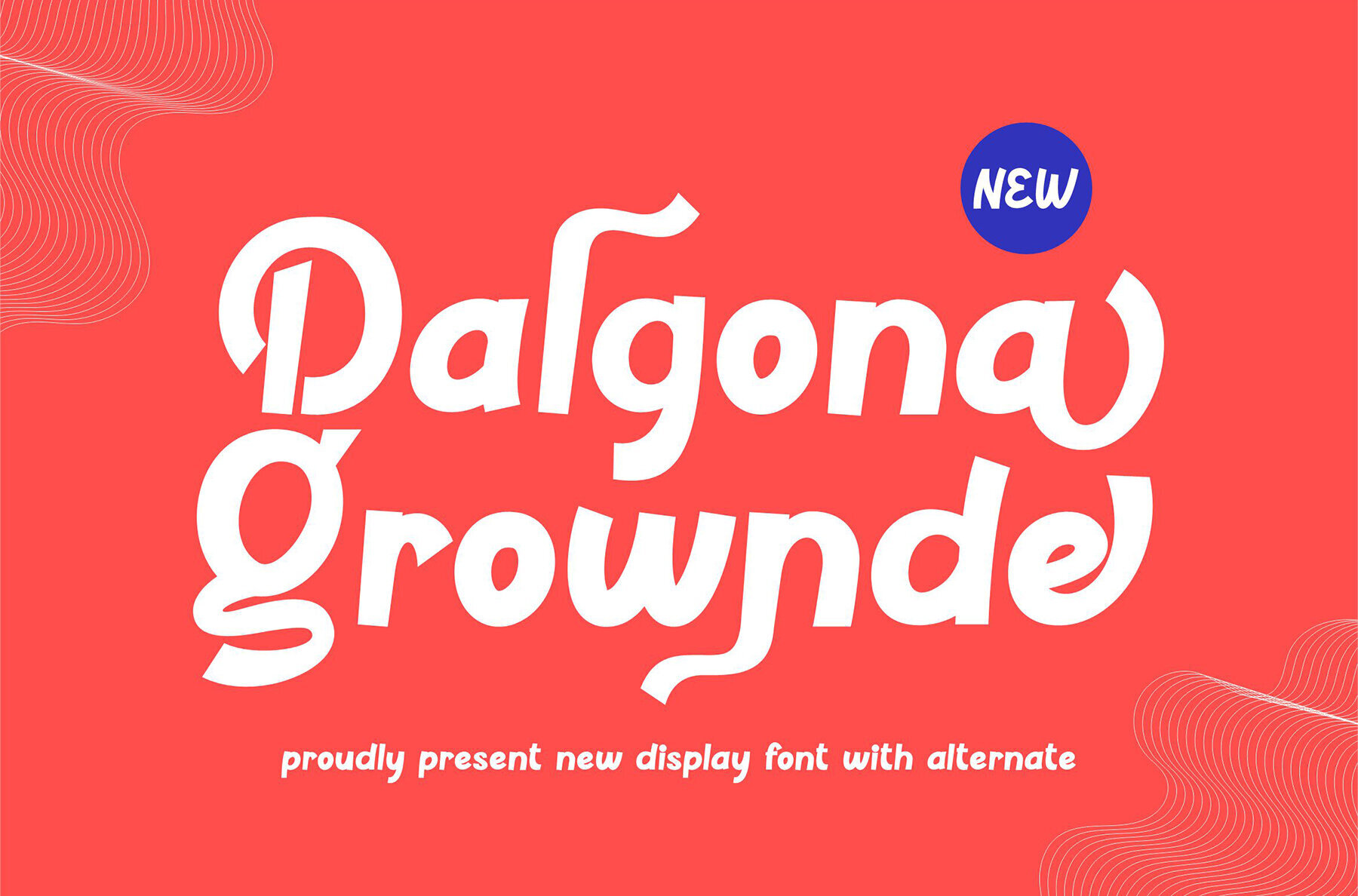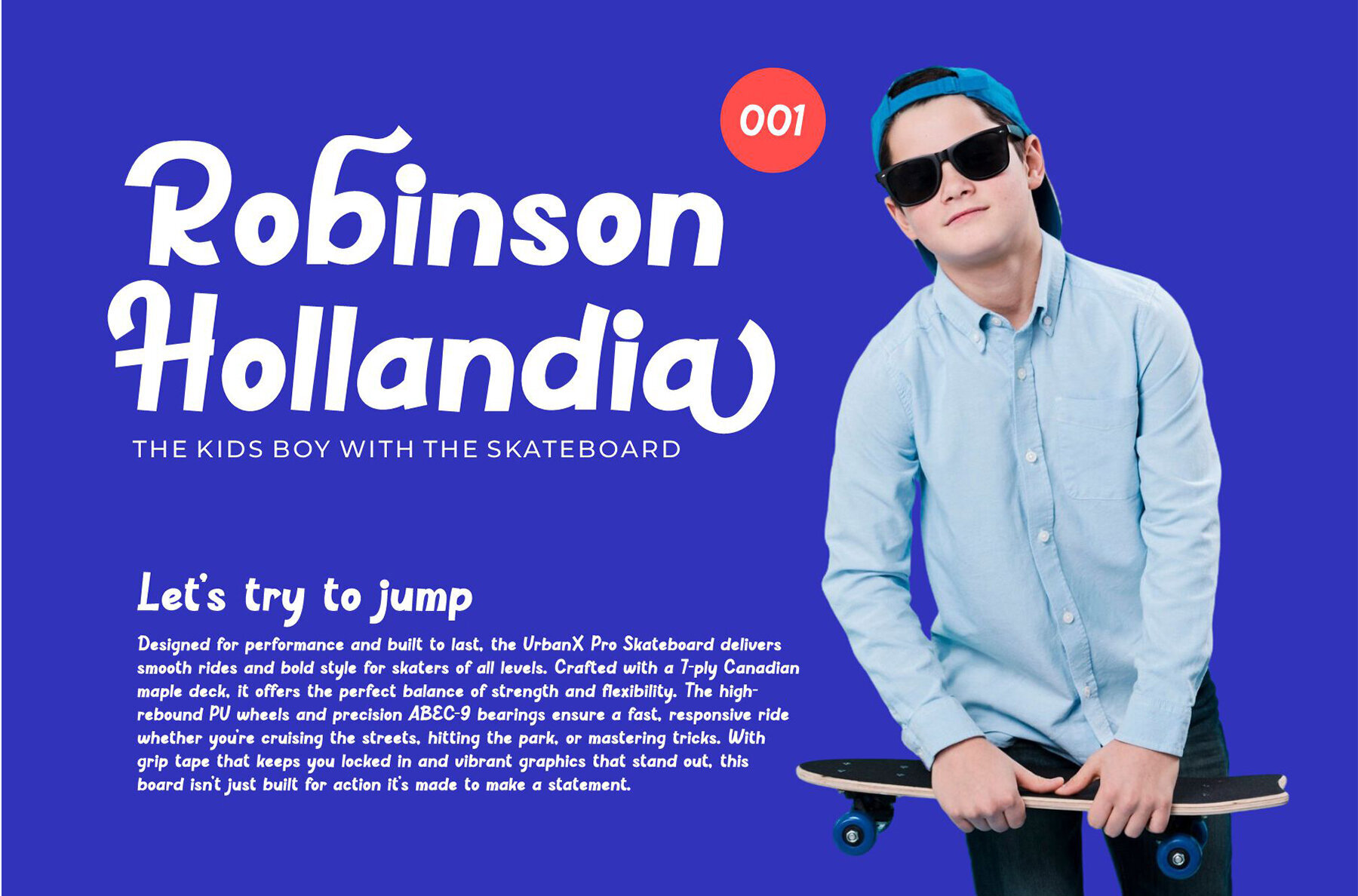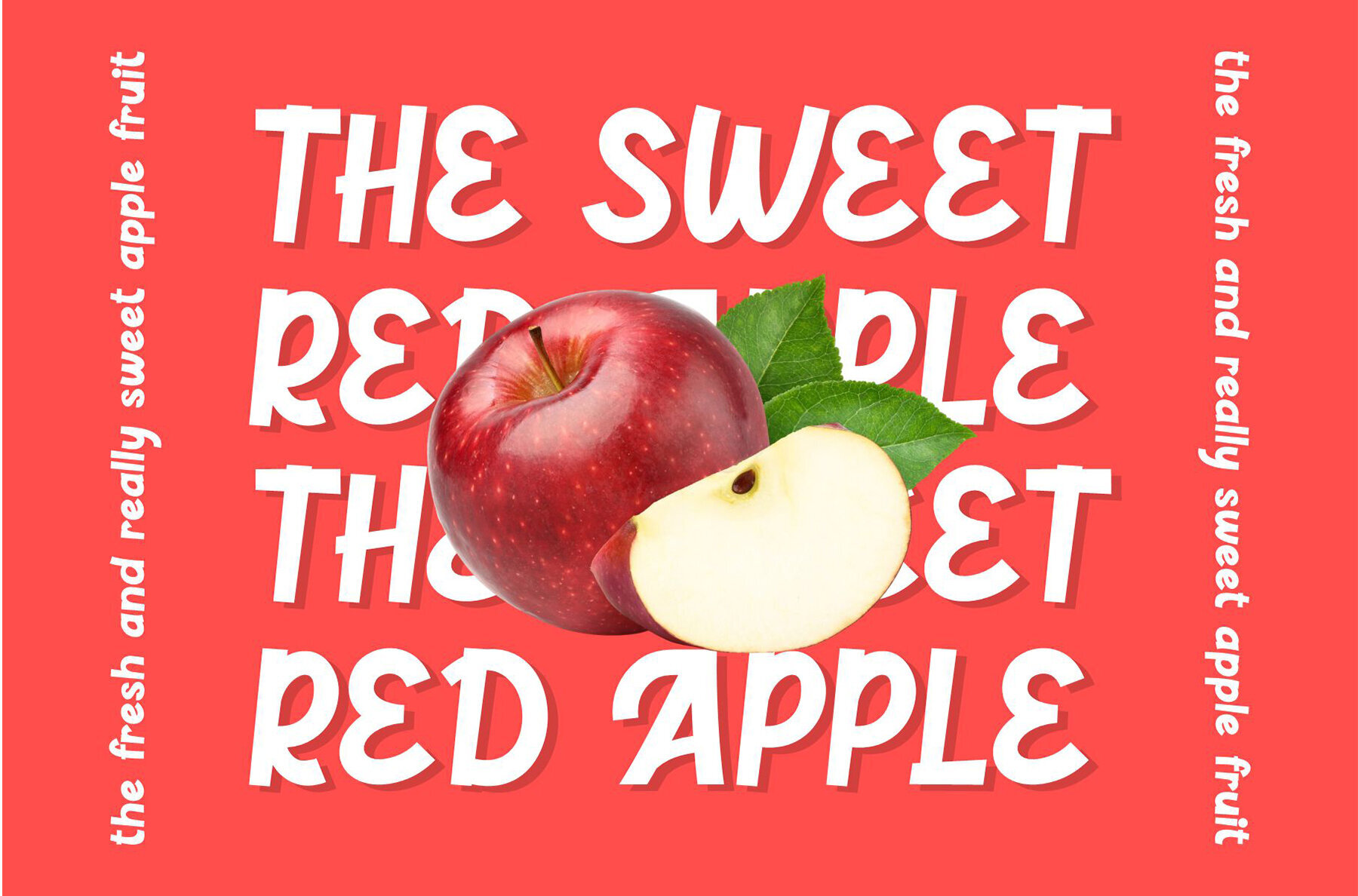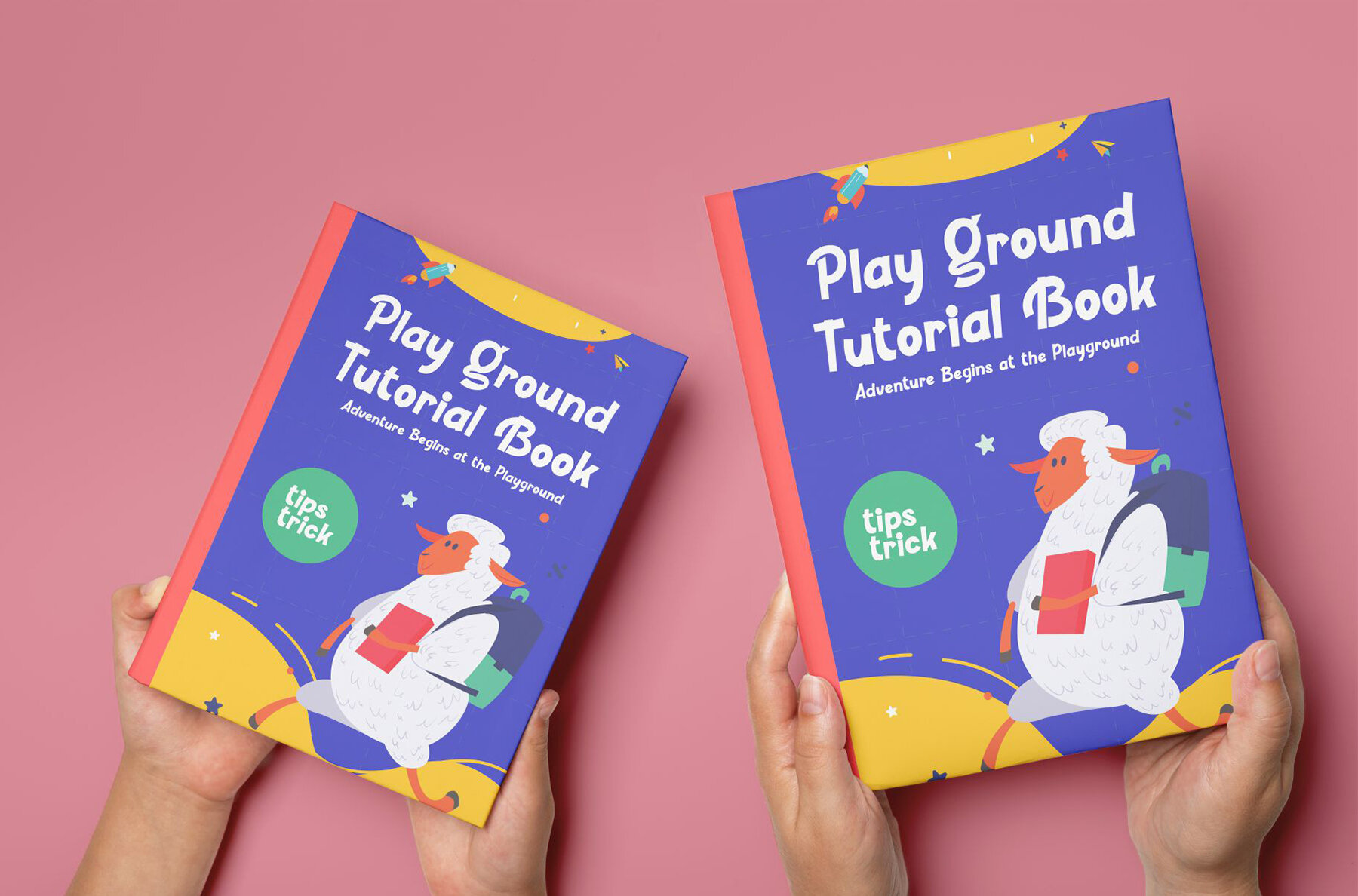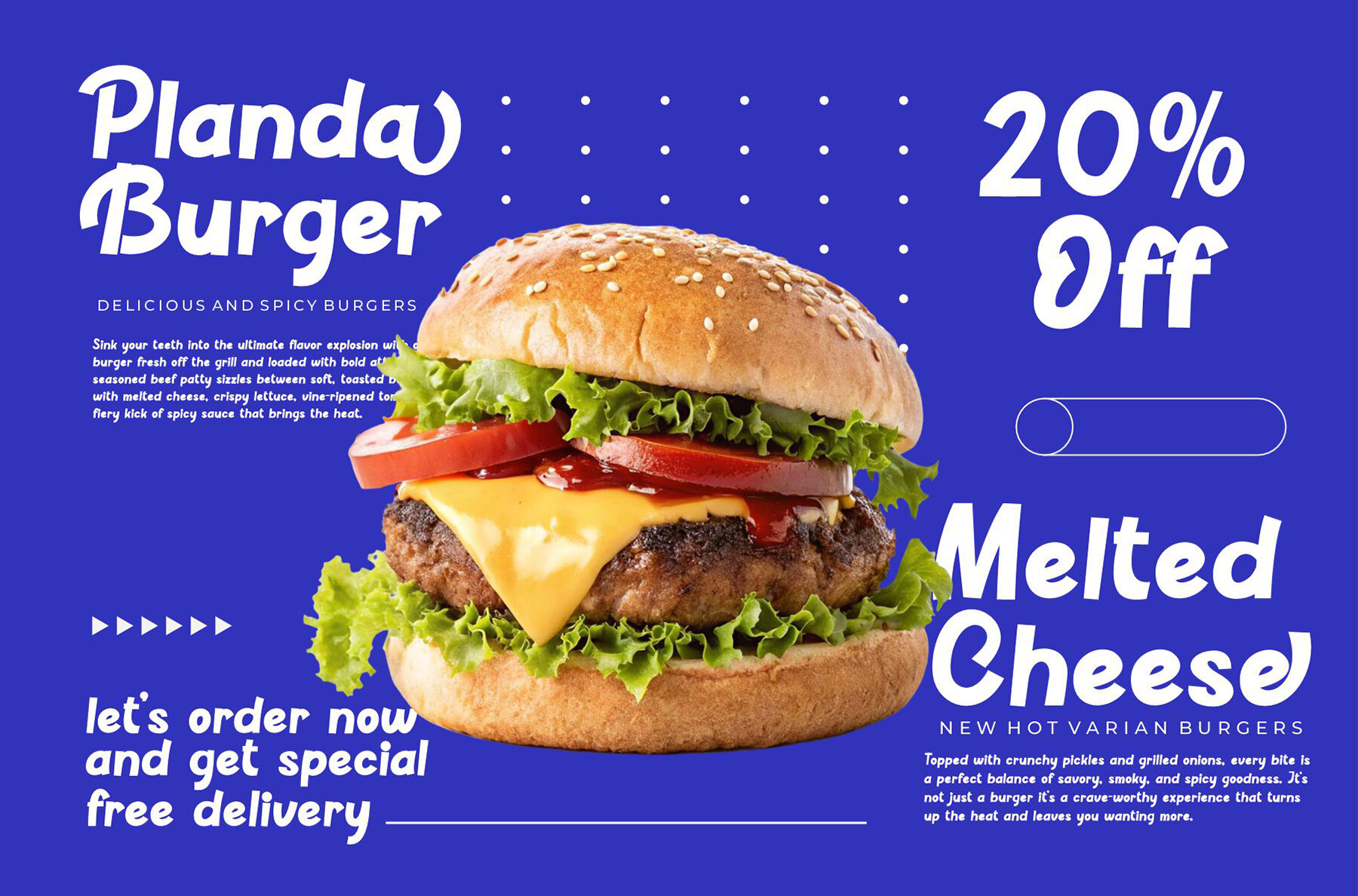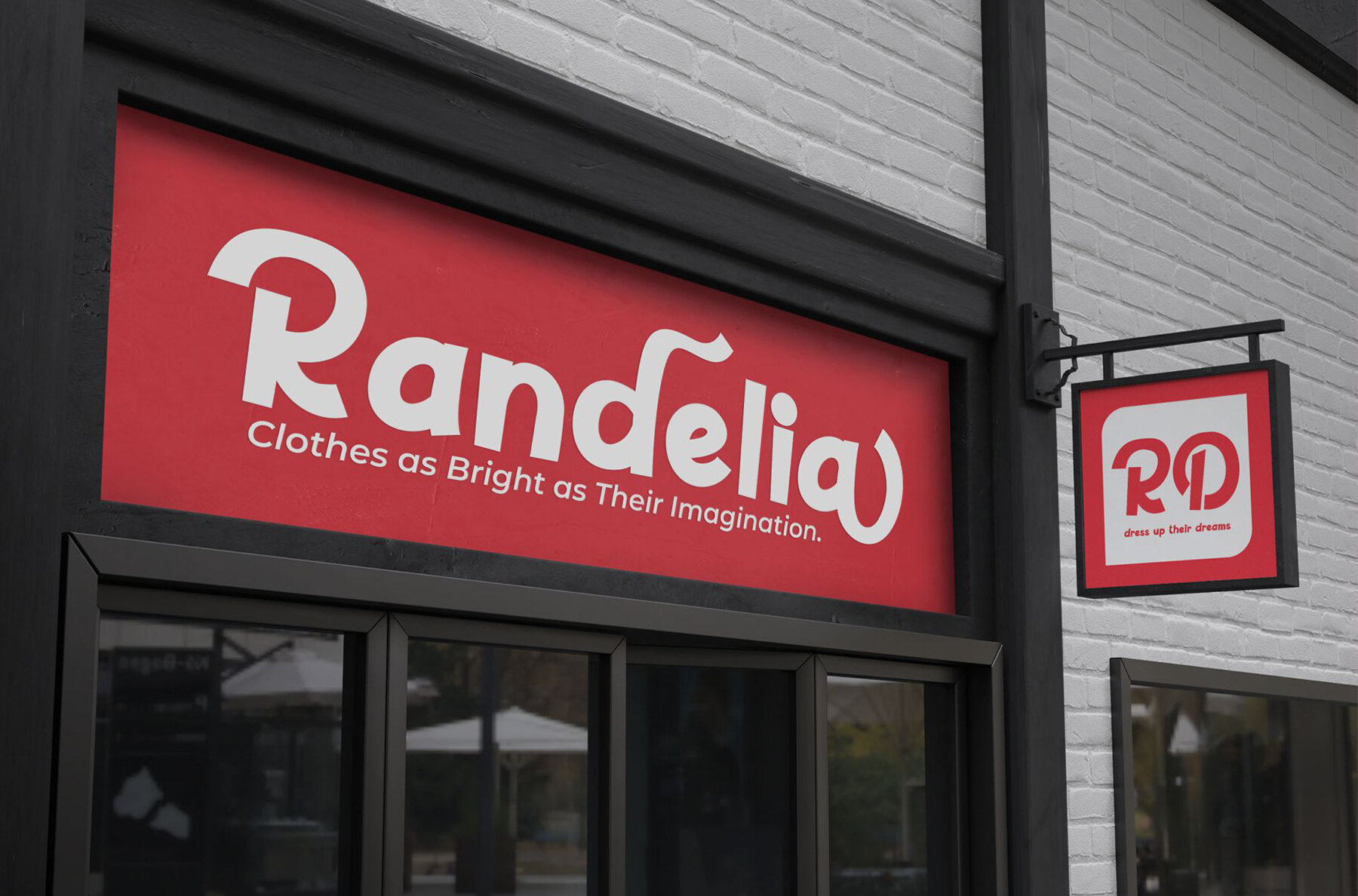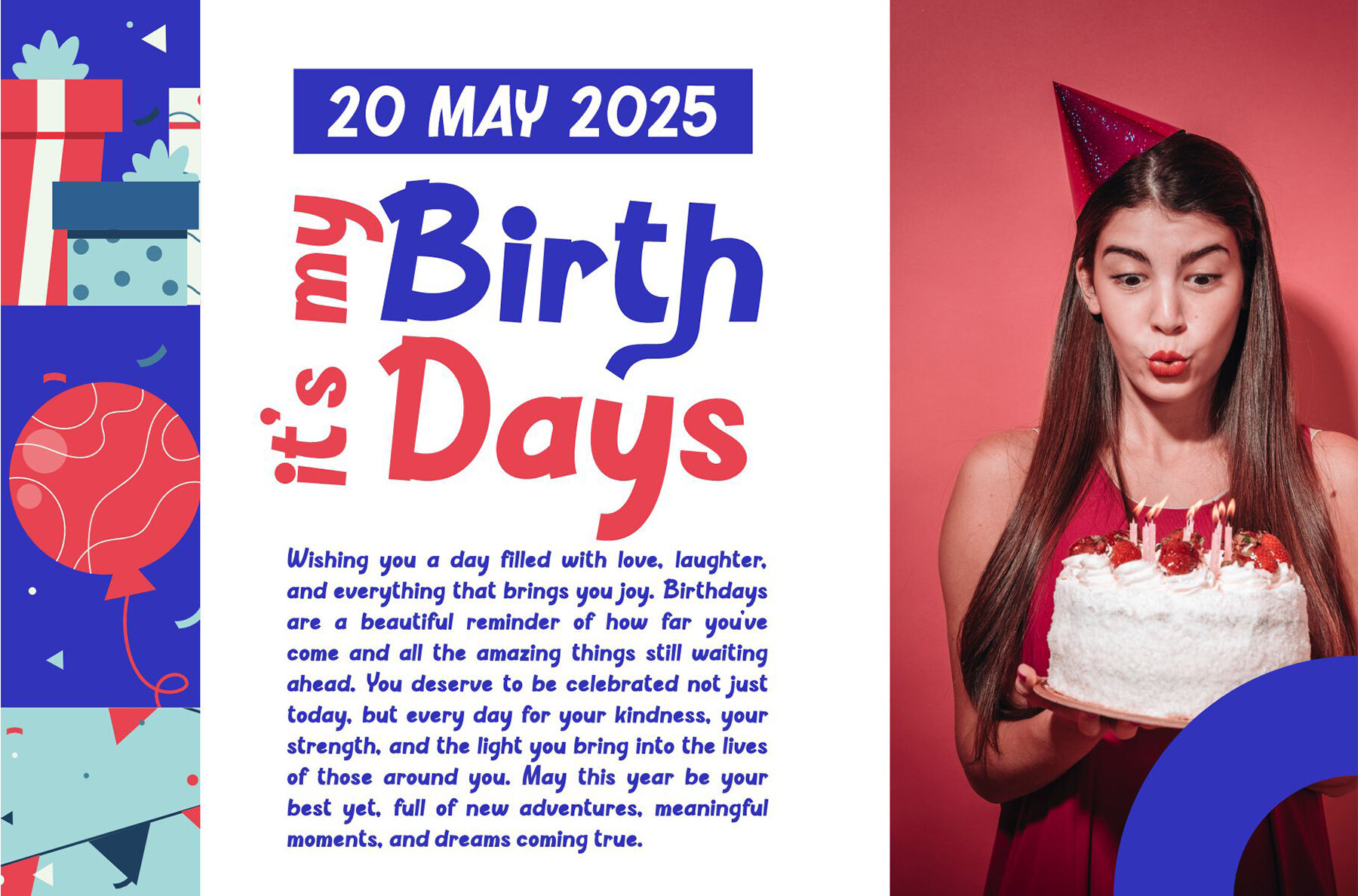
Dalgona Grownde Font
Dalgona Grownde
Dalgona Grownde is a captivating modern display font that exudes trendiness with its bouncy and playful design. Its unique wood-inspired character makes it an excellent choice for various creative projects. Whether you're designing invitation cards, crafting company logos, or seeking the perfect typeface for movie titles, Dalgona Grownde delivers versatility and style across formats.Dalgona Grownde: A Modern Display Typeface